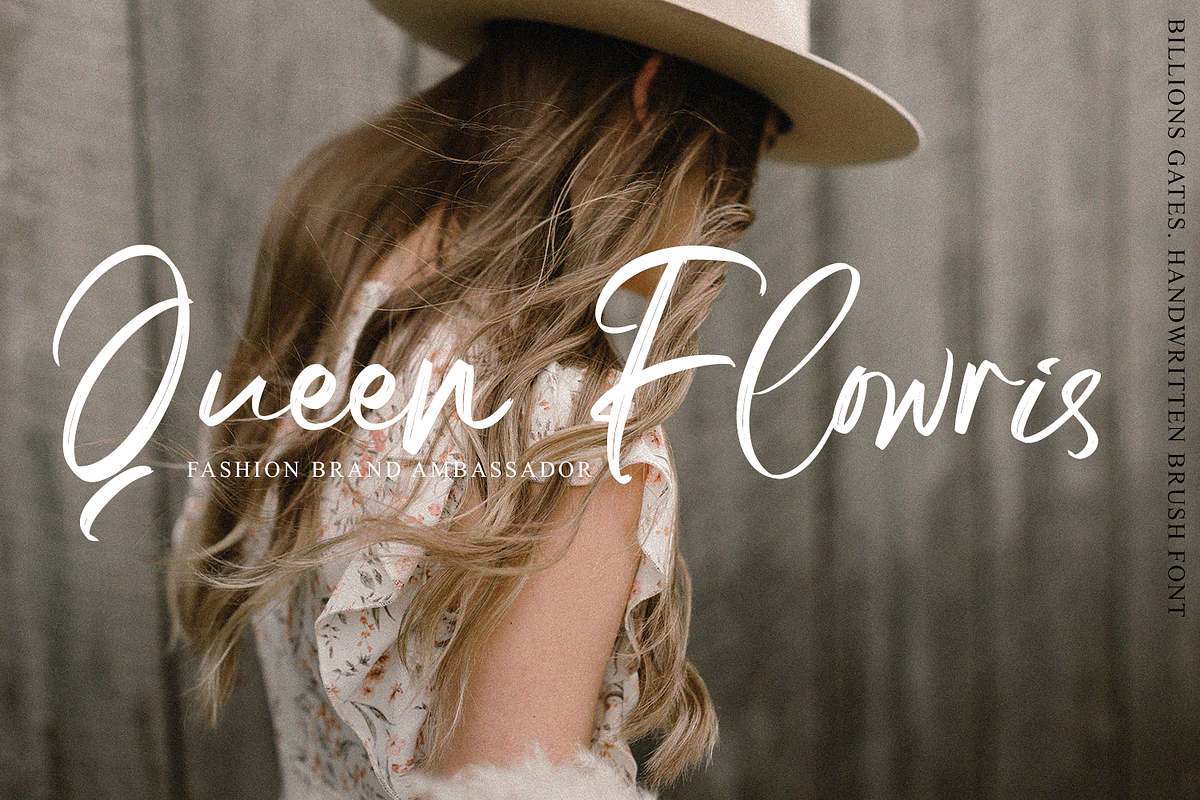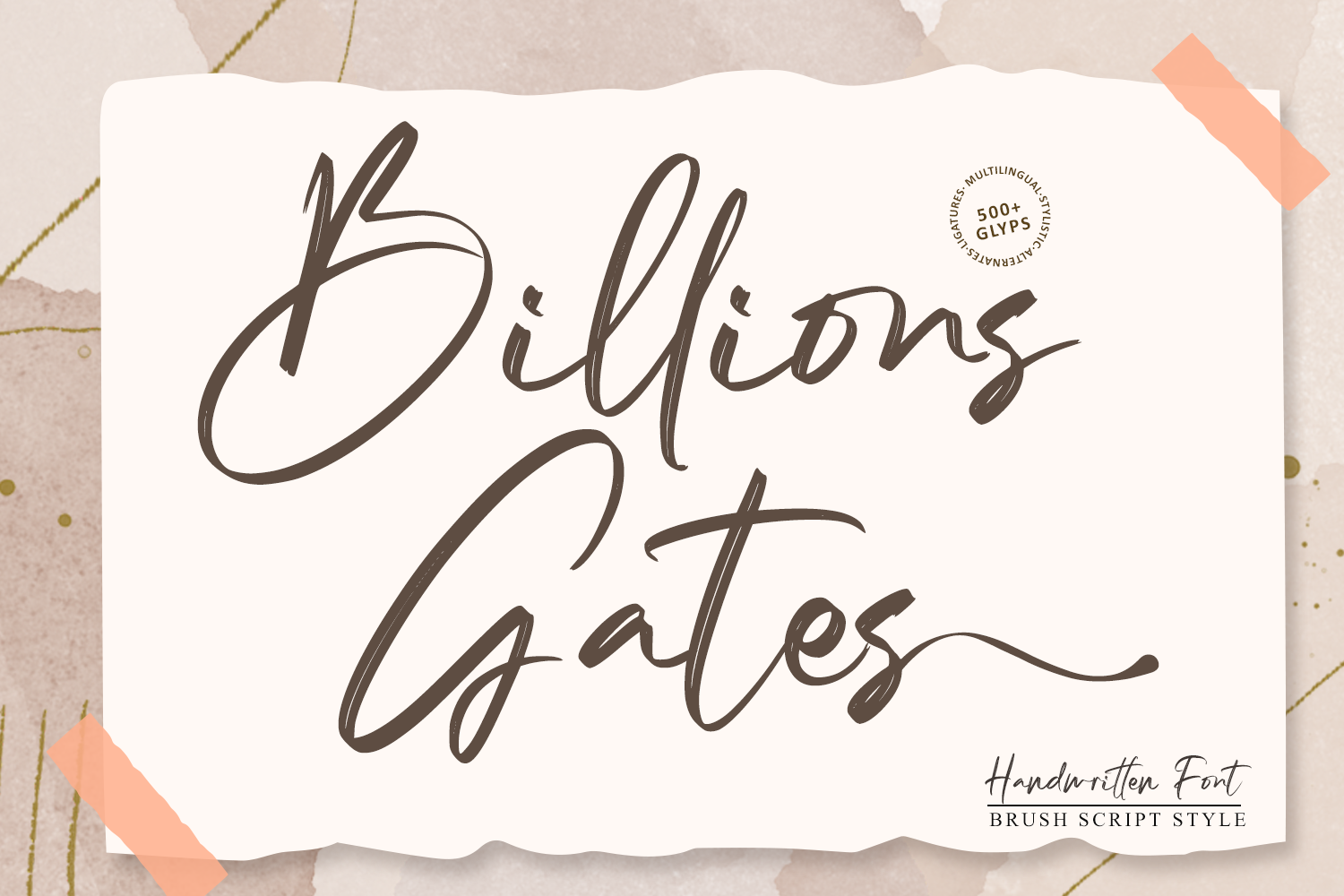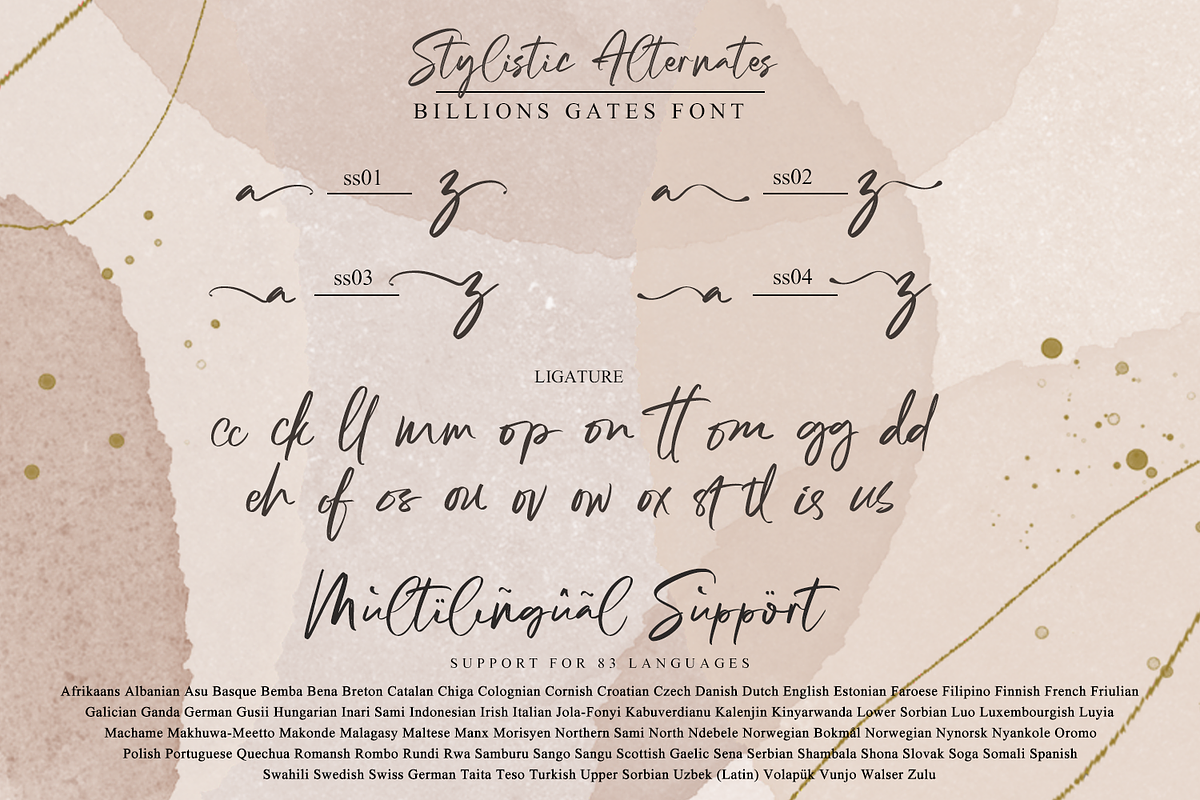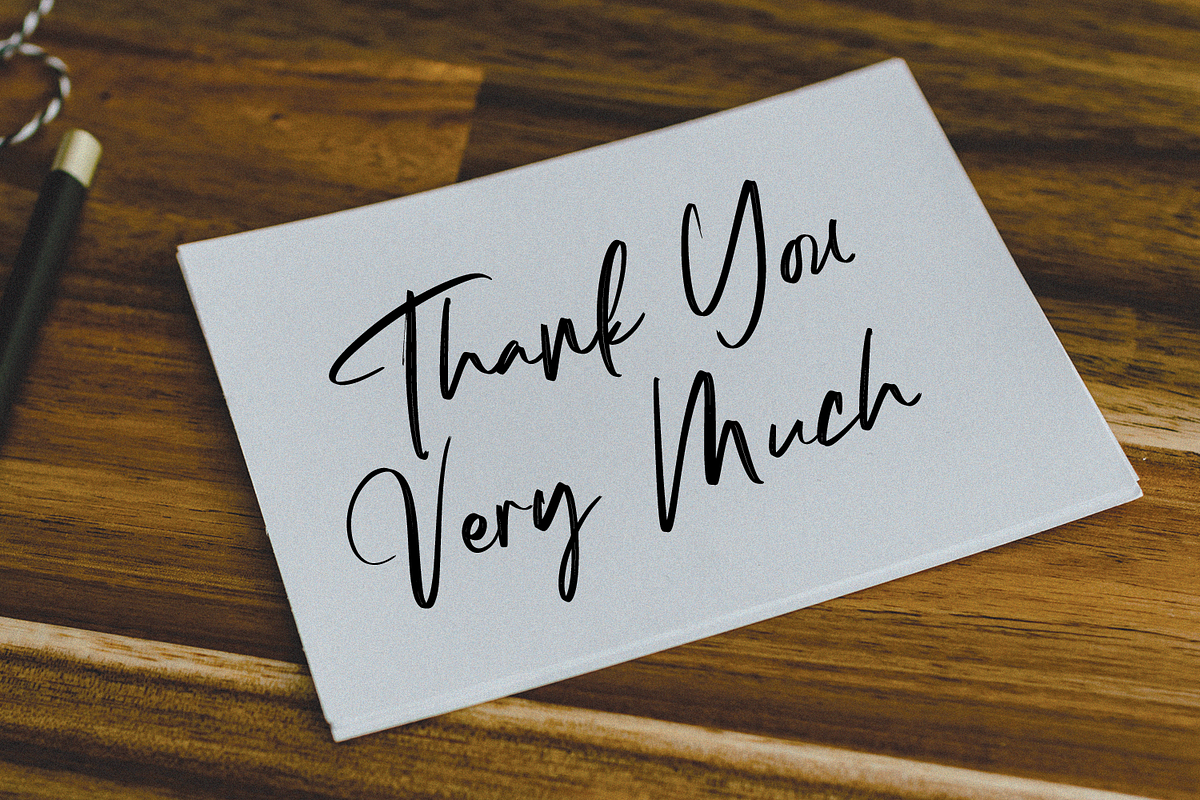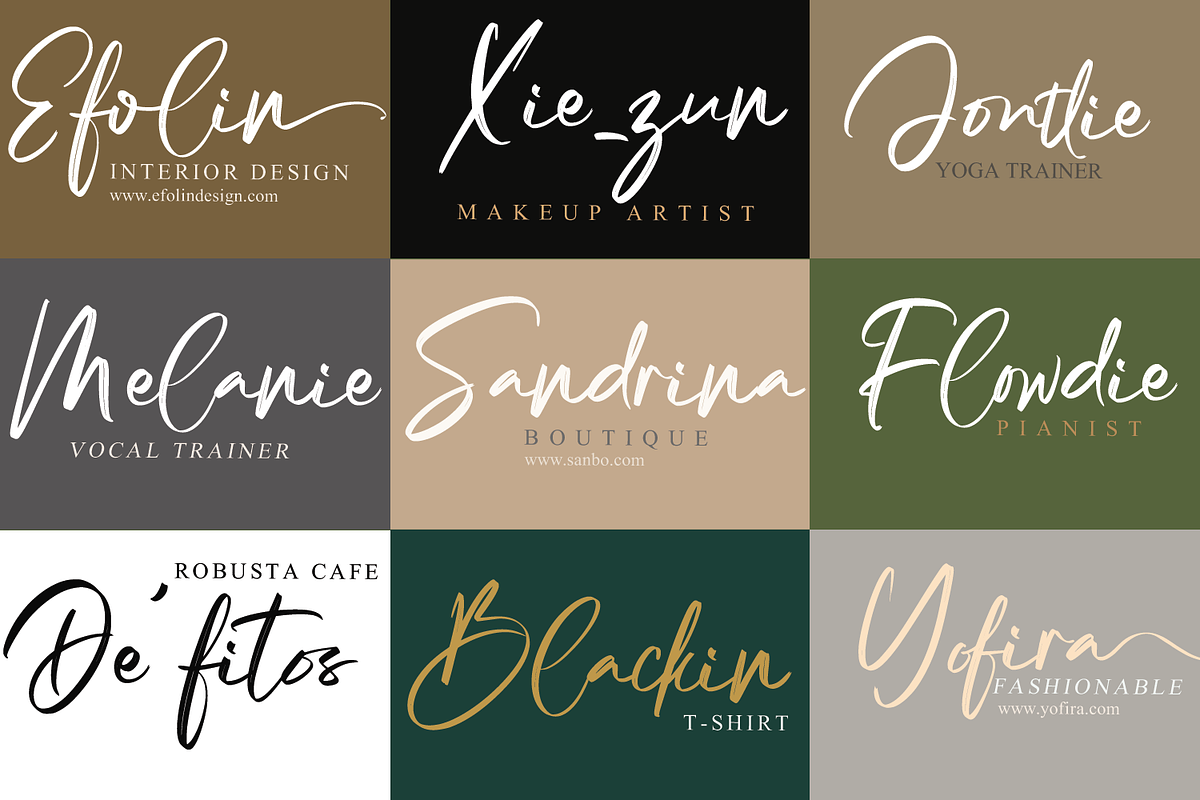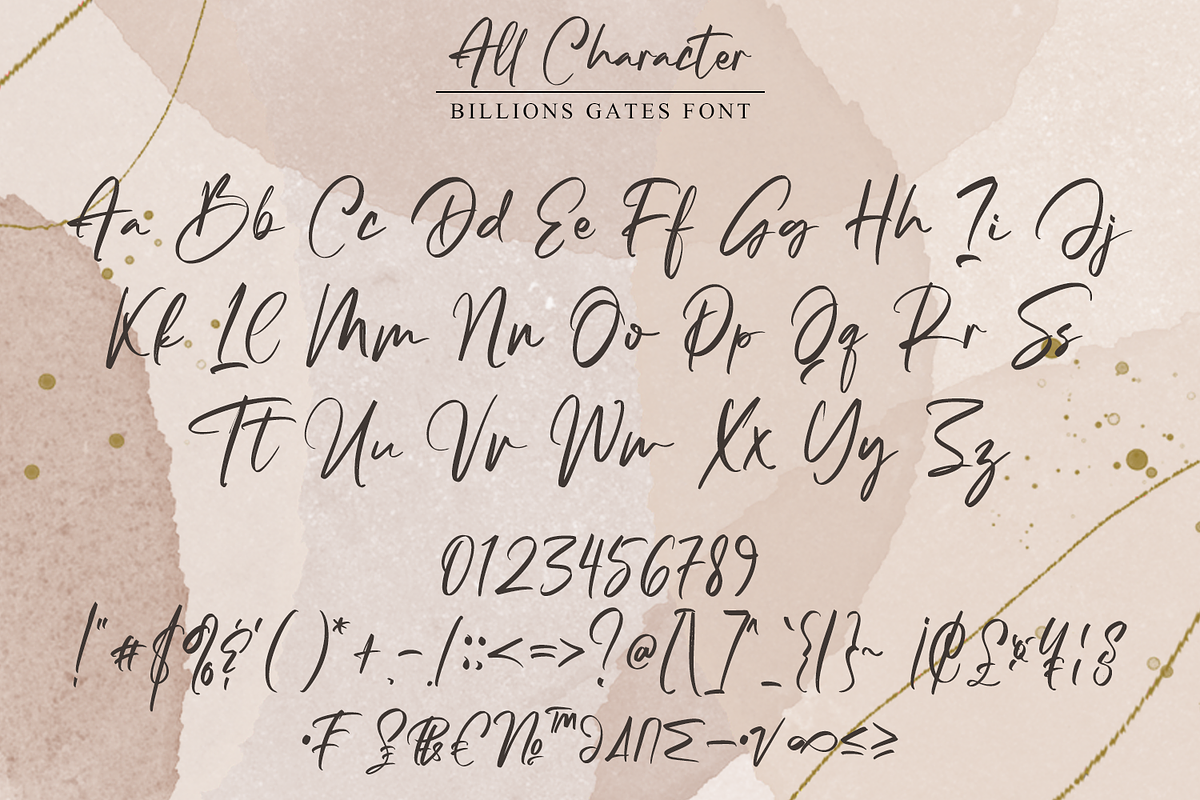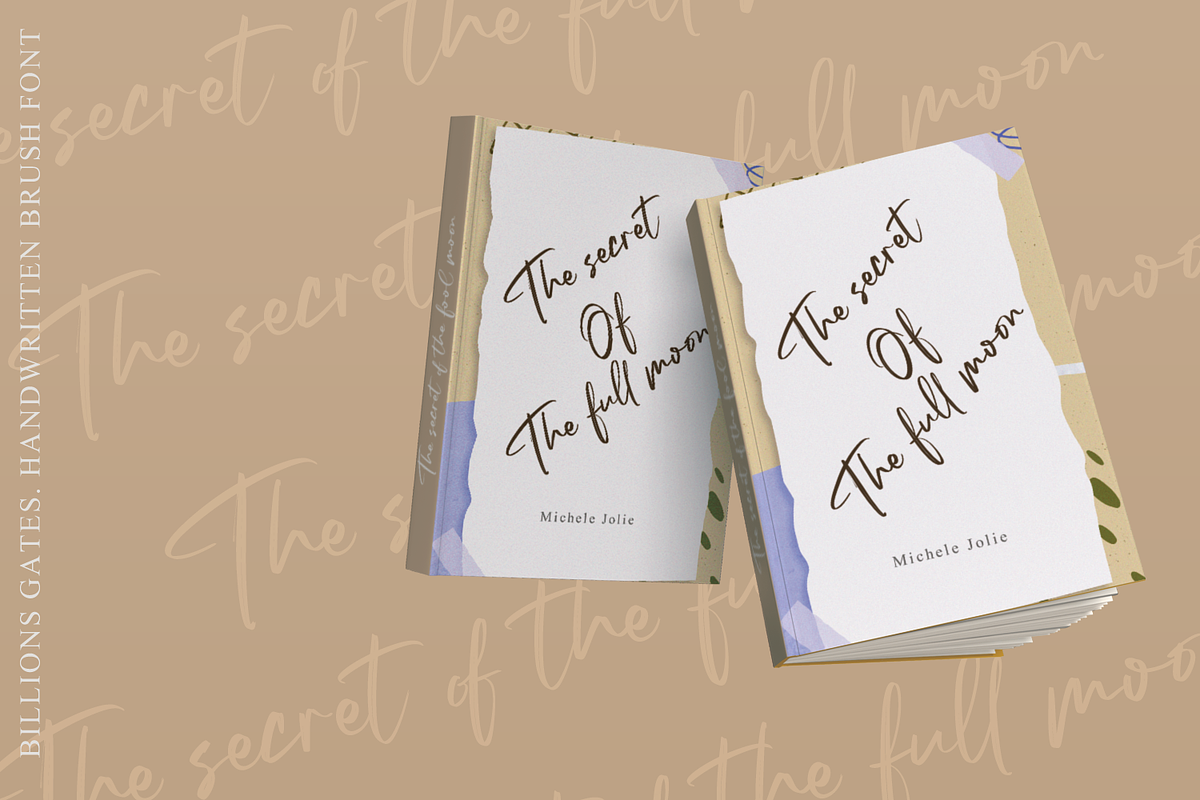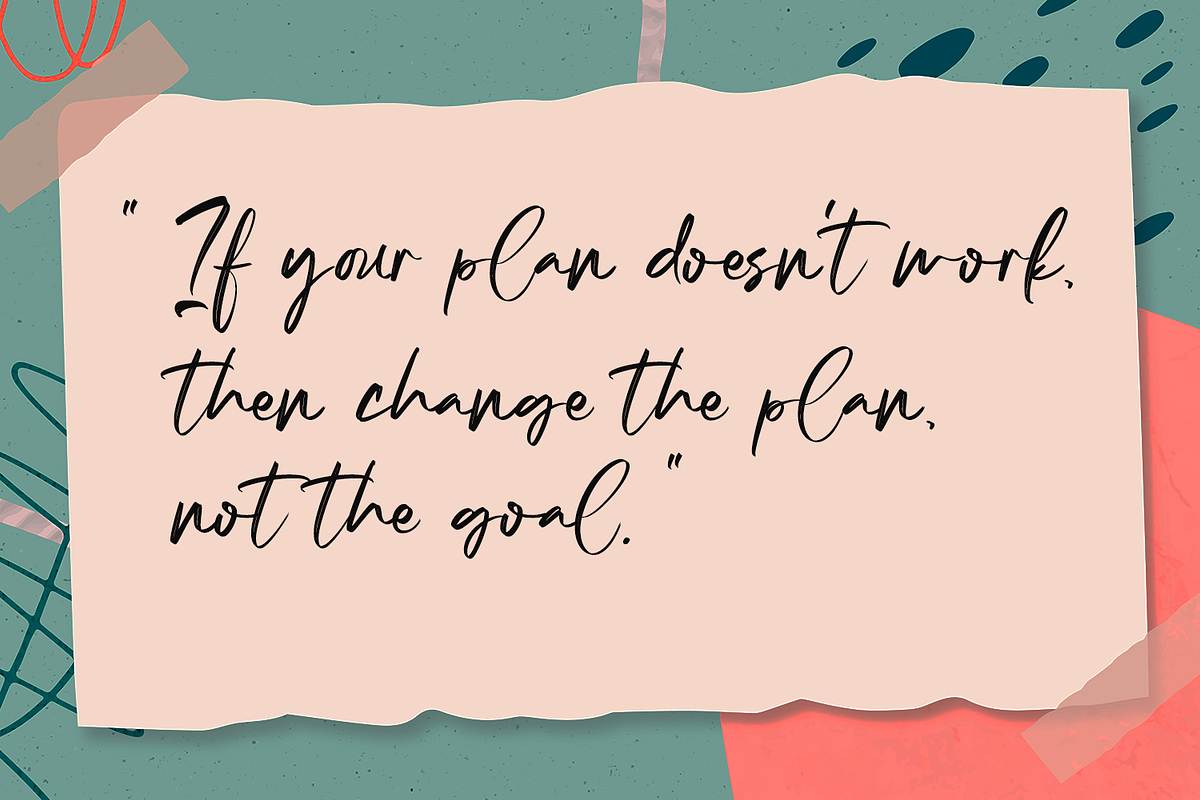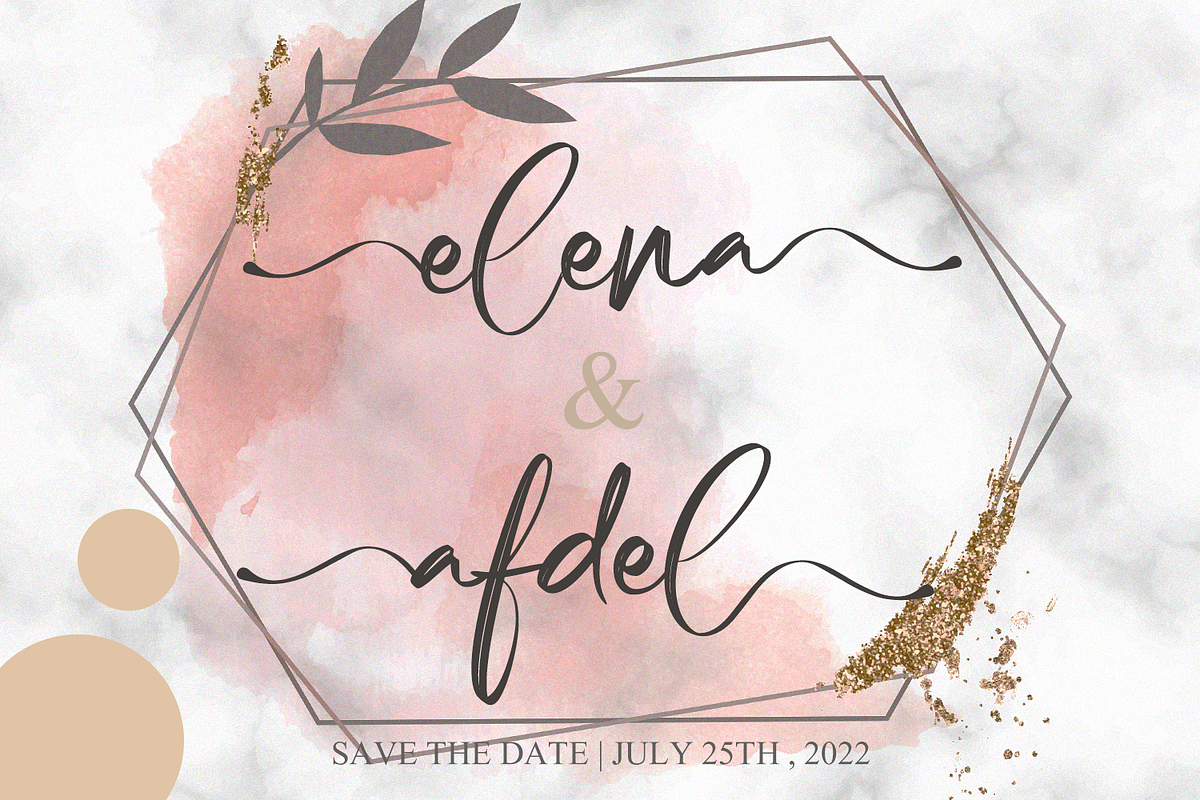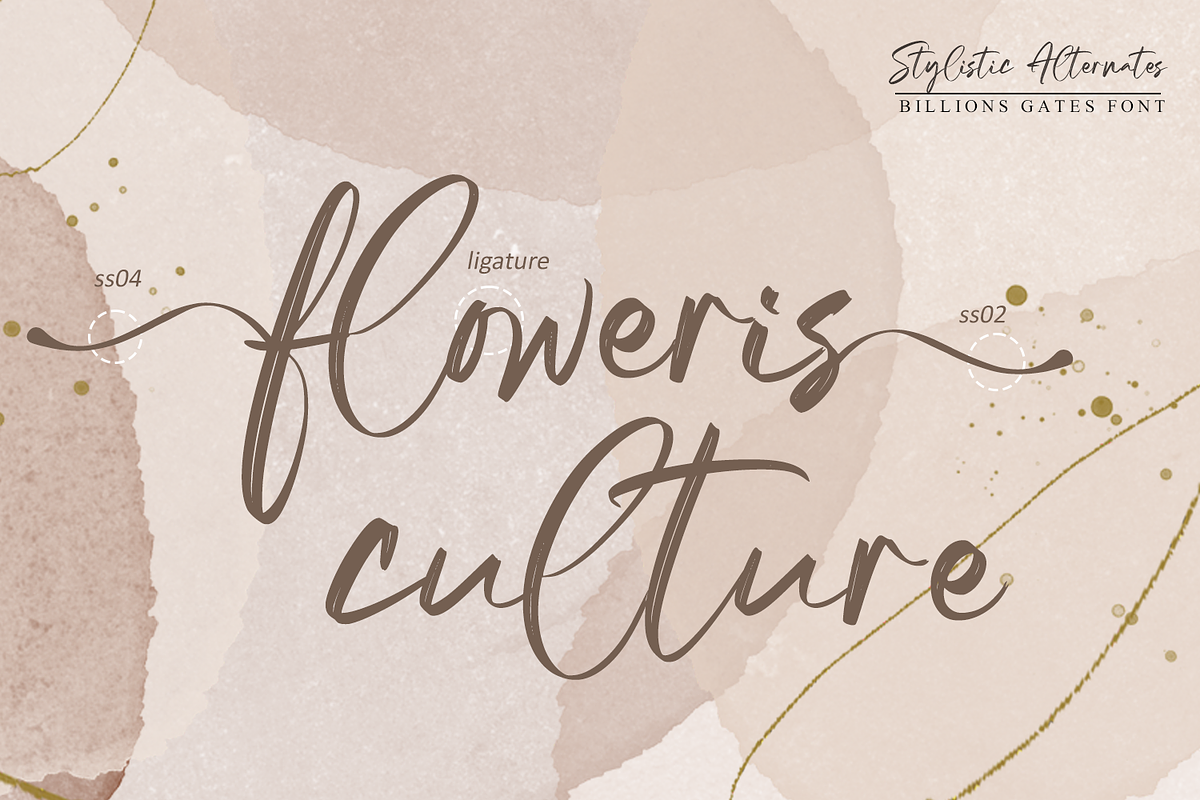
Billions Gates // Brush Font
Billions Gates is a dazzling script font, neatly crafted and highly detailed. Whatever the topic, Billions Gates will be a wonderful asset to your font library and perfect for many projects such as logos & branding, stationery, logo designs, social media posts, advertisements, product packaging, product designs, label, watermark, Product branding and others.
- Multilingual Support for 83 Country
- Stylistic alternates Collection
- Ligature Collection